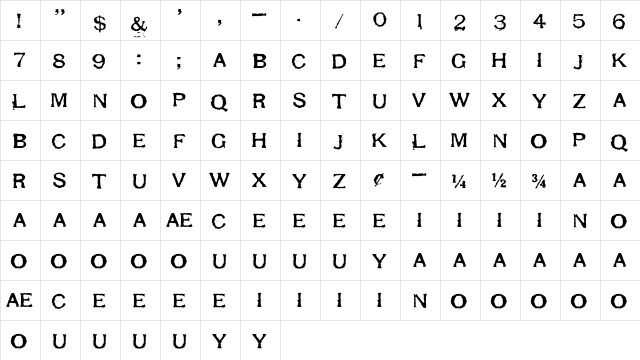
Respess Capitals Heavy Heavy
| Foundry | l'AbΣΤarienne |
| Designer | l'AbΣΤarienne |
Design Context for Respess Capitals Heavy Typeface
Respess Capitals Heavy is a composed and adaptable typeface that performs quietly and consistently across a wide range of design contexts.
Pro Tip: Use Respess Capitals Heavy in both headline and body roles to test its range before committing to a single application.